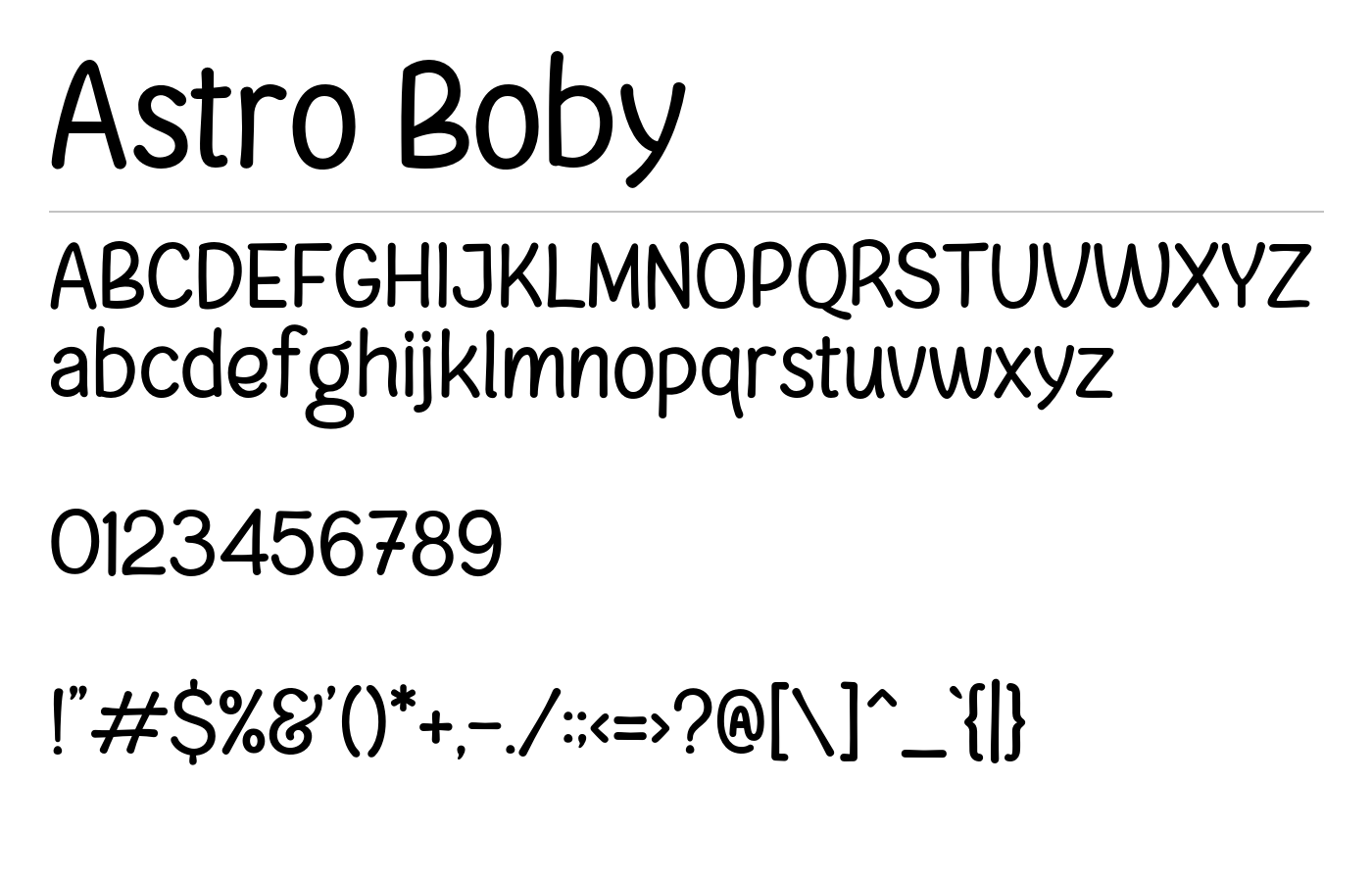
Astro Boby is a playful sans serif font with a casual, hand-drawn feel. Its rounded strokes, moderate x-height, and open letterforms create a friendly and approachable look, making it ideal for informal designs, children's materials, and creative branding. This font works well in headlines and short texts where a warm, personal touch is desired.
Astro Boby Font
About Astro Boby Font
| Designer | Zamroni Hamzah |